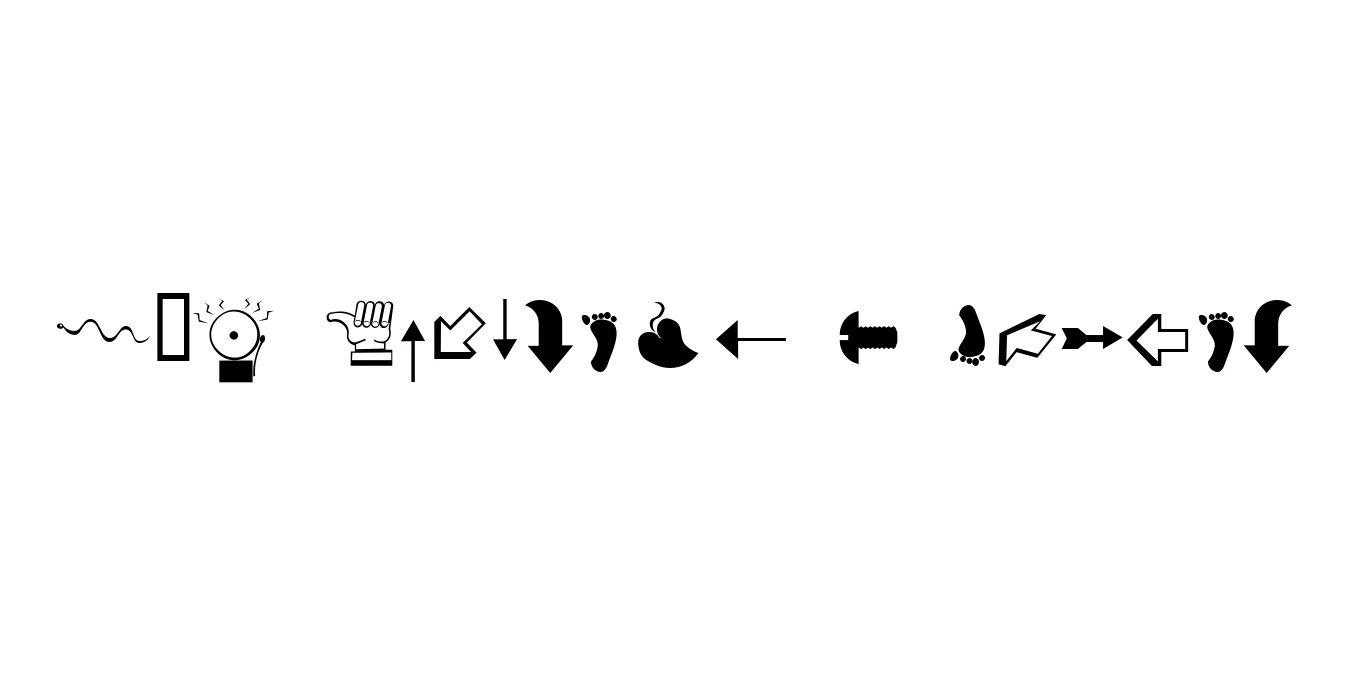
A&L Dingbats 2 Normal
Designed by Robert Altemus
A&L Dingbats 2 Normal is a specialized symbol font created by Robert Altemus of Altemus Creative. Part of a larger series of dingbat collections released during the 1990s, this typeface was designed to provide designers with a vast library of high-quality, scalable vector symbols that could be used across both print and early digital media. The collection focuses on geometric forms, arrows, and abstract shapes that bridge the gap between traditional typesetting ornaments and modern graphic iconography.
This specific iteration, Normal, features a balanced weight and clean outlines, making it exceptionally versatile for desktop publishing. Over the years, A&L Dingbats 2 has become a staple for designers looking for unique decorative elements that differ from the standard system fonts like Wingdings. Its aesthetic reflects a mid-90s digital design sensibility, offering a mix of utilitarian signs and purely aesthetic flourishes that remain relevant for retro-themed projects and contemporary infographic design.
A&L Dingbats 2 Normal Best Uses
Creation of unique navigation icons and UI elements.
Adding ornamental borders and page dividers to layouts.
Developing symbolic logos and brand marks.
Using visual metaphors to represent data points.